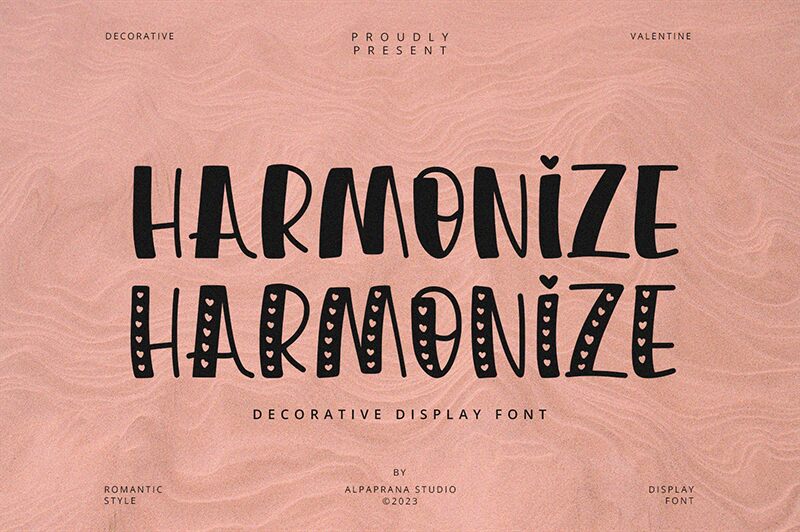
Harmonize font family by Alpaprana Studio consists of 2 beautiful font styles available with a free font for personal use. Playful hearts decorate the letters of this whimsical font and give it its romantic holiday spirit. Harmonize is modern, informal, and friendly with some dynamics and expressiveness in its general presence. This interesting decorative font is ideal for interesting visuals that are engaging and unforgettable.
Use Harmonize in Valentine’s Day projects, dedication cards, invitation designs, notebooks and diaries, website designs, comic books, and school projects. It will fit right in with logos, branding, packaging, and more.